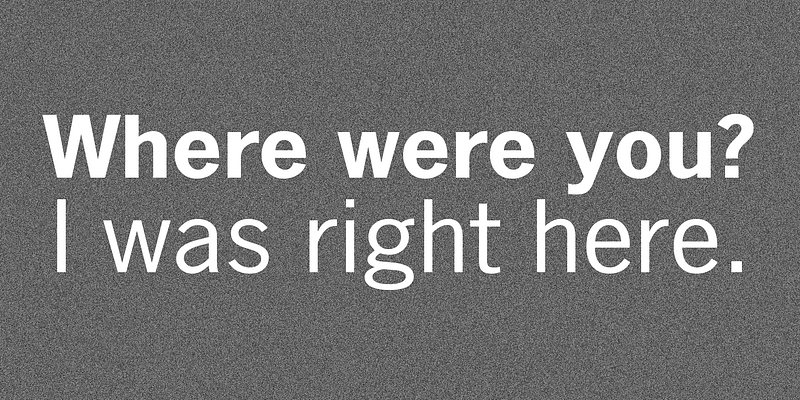
In 1908, Morris Fuller Benton designed News Gothic for American Type Founders. The original design, with two condensed faces, is essentially a light version of Franklin Gothic. In the late 1940s, after a decline in popularity because of the success of the sans serifs from Europe (i.e., Gill Sans, Futura, Kabel), American gothic typefaces made a comeback. It was during this time that more versions of News Gothic were designed, including News Gothic Bold, which Intertype released in 1955. Like Franklin Gothic, these typefaces are classics for newspaper headlines, advertising, and packaging.